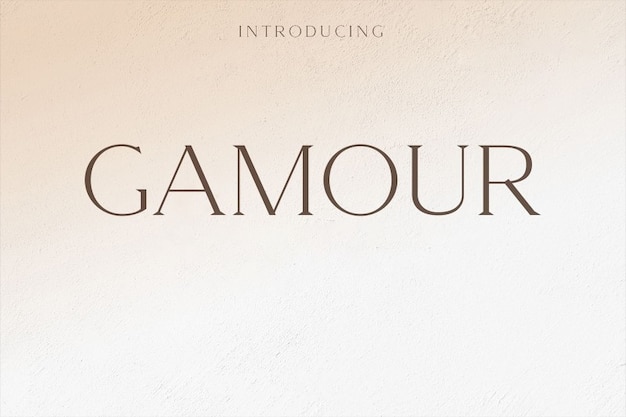
Gamour Font
Gamour font is the epitome of modern elegance and simplicity. Every character is a masterpiece of contemporary design, turning your text into a sleek work of art. It's the perfect choice for projects that require a clean and stylish look with a touch of timeless charm. Gamour effortlessly marries elegance with modernity, making your words a captivating expression of refined simplicity.